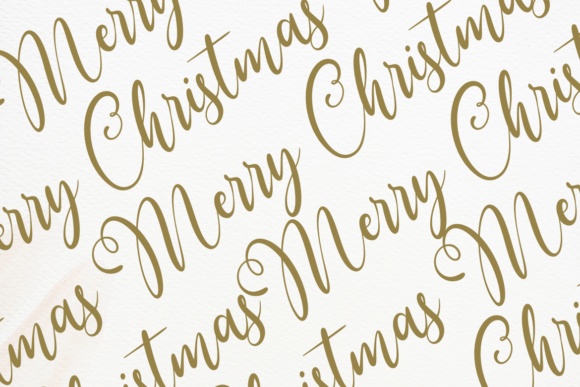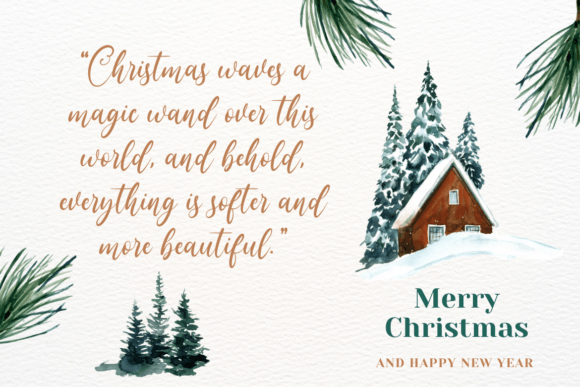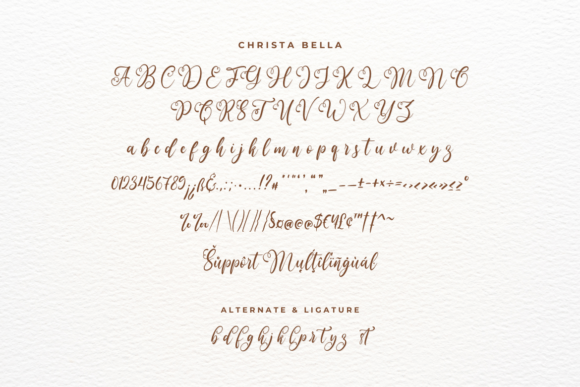
The Perfect Script for Your Masterpiece: Christa Bella Font
As designers, we’ve all been there – staring at a blank page, trying to find the perfect font to bring our creative vision to life. The moment when the words start flowing, and the design begins to take shape, is pure magic. For me, that moment happened when I stumbled upon the Christa Bella Font – a stunning and sophisticated script that radiates beauty and elegance.
With its delicate flourishes and sweeping curves, this font is perfect for any project where a touch of class is needed. Whether it’s a Christmas theme, a wedding invitation, or branding materials, Christa Bella Font is the perfect choice to create a timeless and elegant look. As a designer, you’ll appreciate the value of this font, especially with its PUA encoding, allowing you to access all the delightful glyphs and swashes effortlessly.
Christa Bella Font Key Features
- Font Size: 20 fonts in total, ranging from 12 to 72 point sizes
- Resolution: Supports high-resolution displays, ideal for printing and digital use
- Unique Characteristics: Elegant, sophisticated design with a mix of modern and classic elements; includes swashes and alternates for added versatility
- Language Support: Supports a wide range of languages, including Latin-based languages, Greek, and Cyrillic
- Font Style: Script, Display, and Sans-Serif styles available
Christa Bella Font Review
Christa Bella is a beautiful script font with a lot of flair. The first thing that caught my eye was the ✨ elegant feel it brings to any text. It’s perfect for adding a touch of sophistication to headings, titles, or even quotes. The font’s unique characteristics, such as the subtle connections between letters, give it a hand-written feel that’s both charming and professional.
- ✨ Elegant and sophisticated feel that adds a touch of class to any text
- ✨ Unique characteristics that mimic hand-written text
- ✨ Works well for headings, titles, and quotes
However, there are a few things to consider when using Christa Bella. ⚠️ One of the main limitations is that it can be difficult to read at small font sizes due to its script nature. Additionally, some of the letter combinations can be quite dense, making it challenging to distinguish between certain letters. This can be a problem if you’re planning to use the font for large blocks of text.
Overall, I think Christa Bella is a great font for adding a touch of elegance to your designs. While it may have some limitations, it’s definitely worth considering for your next project. Just be mindful of the font size and letter combinations to ensure it reads clearly.
Getting the Most Out of Christa Bella Font
For optimal results, use Christa Bella Font in conjunction with bold or italic styles to add emphasis and visual interest. Experiment with different font sizes and colors to create a cohesive and eye-catching design.
Christa Bella Font is ideal for:
- Food and beverage packaging
- Home decor and furniture design
Alex Brush Font is a beautiful, handwritten script font with a touch of elegance and sophistication. It’s perfect for use in branding, advertising, and packaging where a personal and creative touch is required. Alex Brush Font has a similar handmade feel to Christa Bella Font, but with a more subtle and refined tone.
What is the recommended font size for using the Christa Bella font?
The recommended font size for using the Christa Bella font is between 12pt and 24pt. This size range provides optimal readability and legibility for most design applications. However, you can adjust the font size to suit your specific design needs.